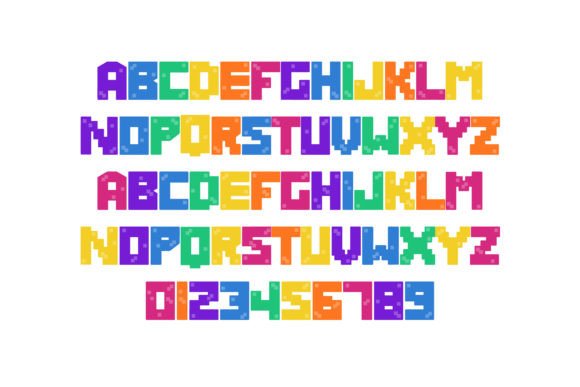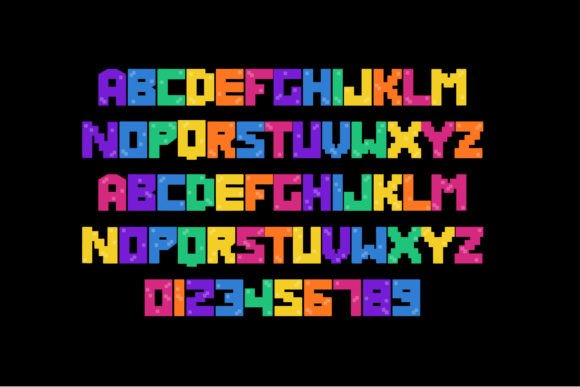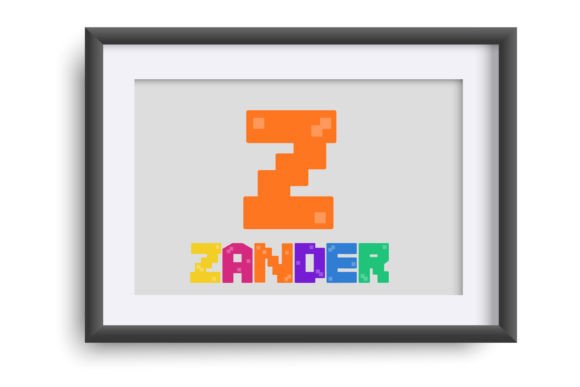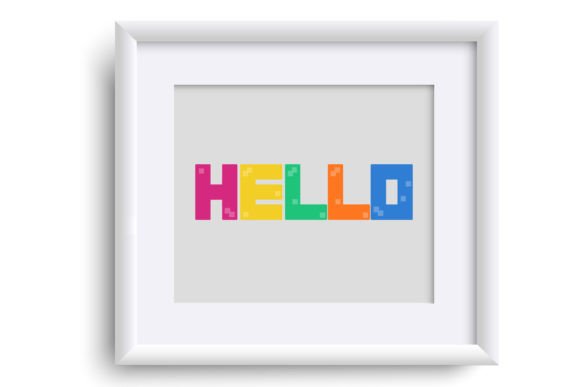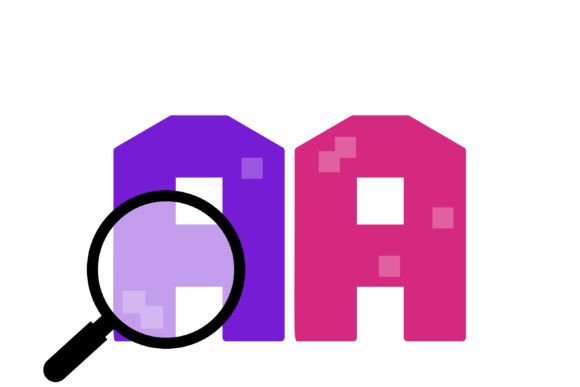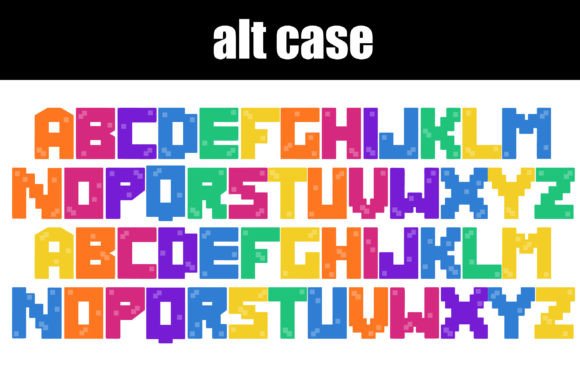
Introduction to Pixelcraft Rainbow Font
Pixelcraft Rainbow is a vibrant, quirky, and colorful typeface, perfect for making your words stand out.
It’s bold, playful, and full of energy, with bright and unique letter forms that lend a creative touch to any project It’s a great choice for adding a touch of fun and silliness to your designs.
Key Features of Pixelcraft Rainbow Font